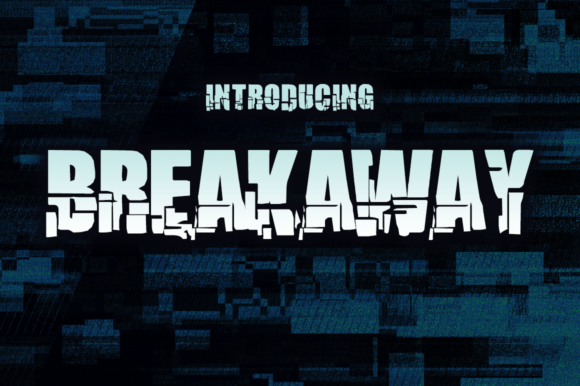
Breakaway
About Breakaway Font
Breakaway is a stunning shattered display font, perfect for action-based themes and more! This bold, blocky font has a ton of style and is a free font download from typographer Vic Fieger.